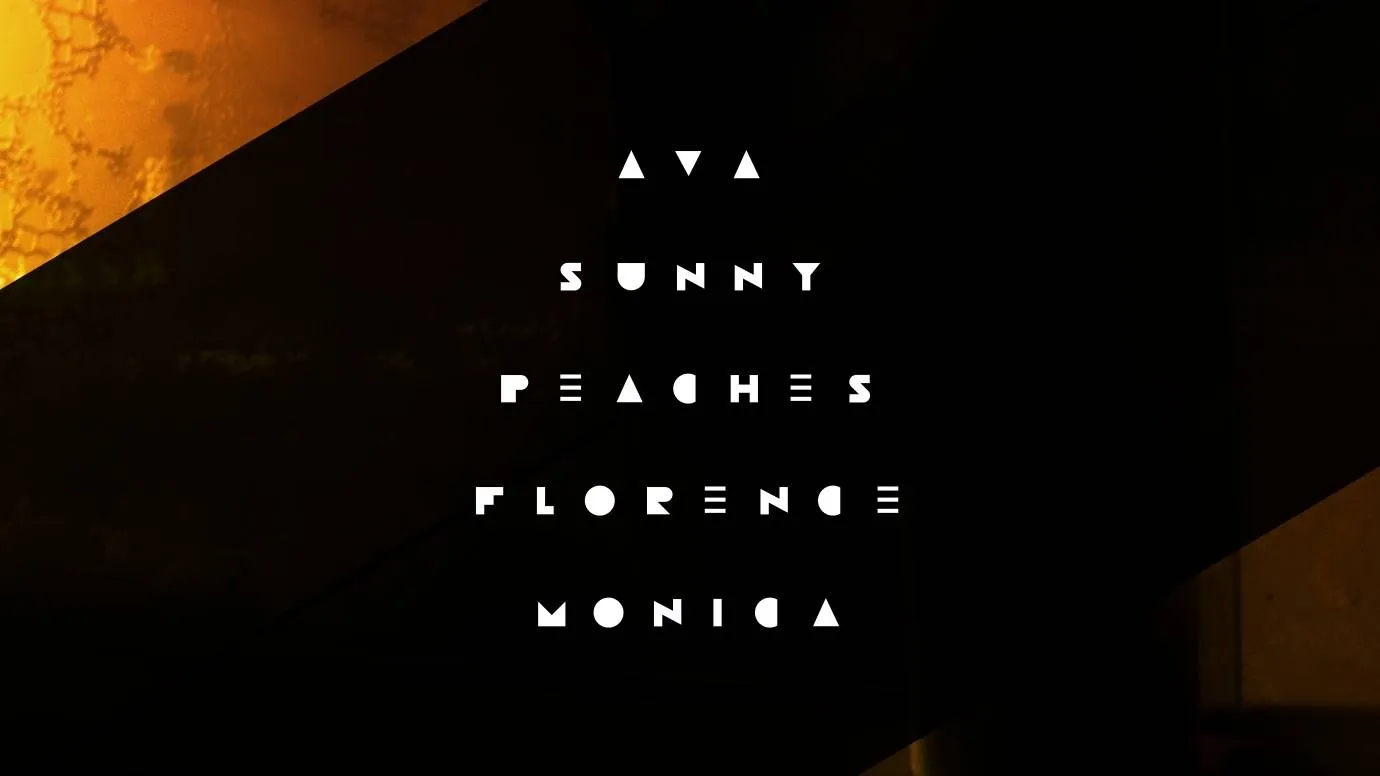
Wicked Font is a group member of the sans-serif font created by David Jonathan Ross. It has strong, angular lines font and is perfect for headlines, logos, and posters. The font is looking the same as Champion Gothic Featherweight Font.
This typeface is most commonly used for headlines, logos, and posters. It’s a great font for making bold statements and grabbing attention. You can use this font for homeware design, this is the amazing text for graphics design and outstanding for web titles and so on.
Designer of Wicked Font
This advanced and amazing style of bold texture is designed by one of the famous designers which are known as David Jonathan Ross.
This font style is published in a single style, this single style of texture consists of glyphs, digits, capital and small letters, punctuation, a set of characters, and a wide range of language supports.
View of Wicked Font
| Name | Wicked Font |
| Style | Decorative |
| Designer | David Jonathan Ross |
What type of font is Wicked Font?
This typeface is a group member of the sans-serif font created by David Jonathan Ross. It has strong, angular lines font.
Who created Wicked Font?
This advanced and amazing style of bold texture is designed by one of the famous designers which are known as David Jonathan Ross.